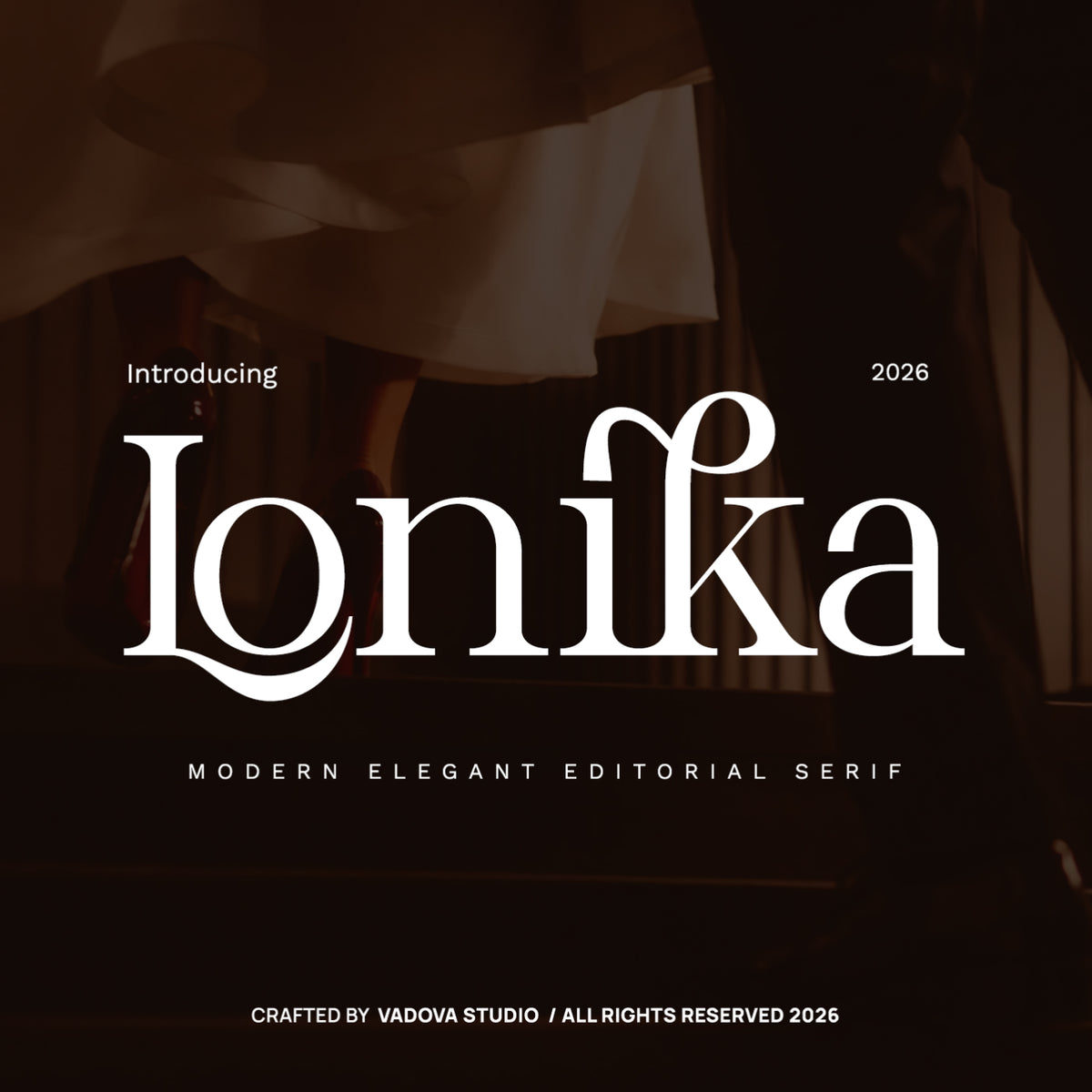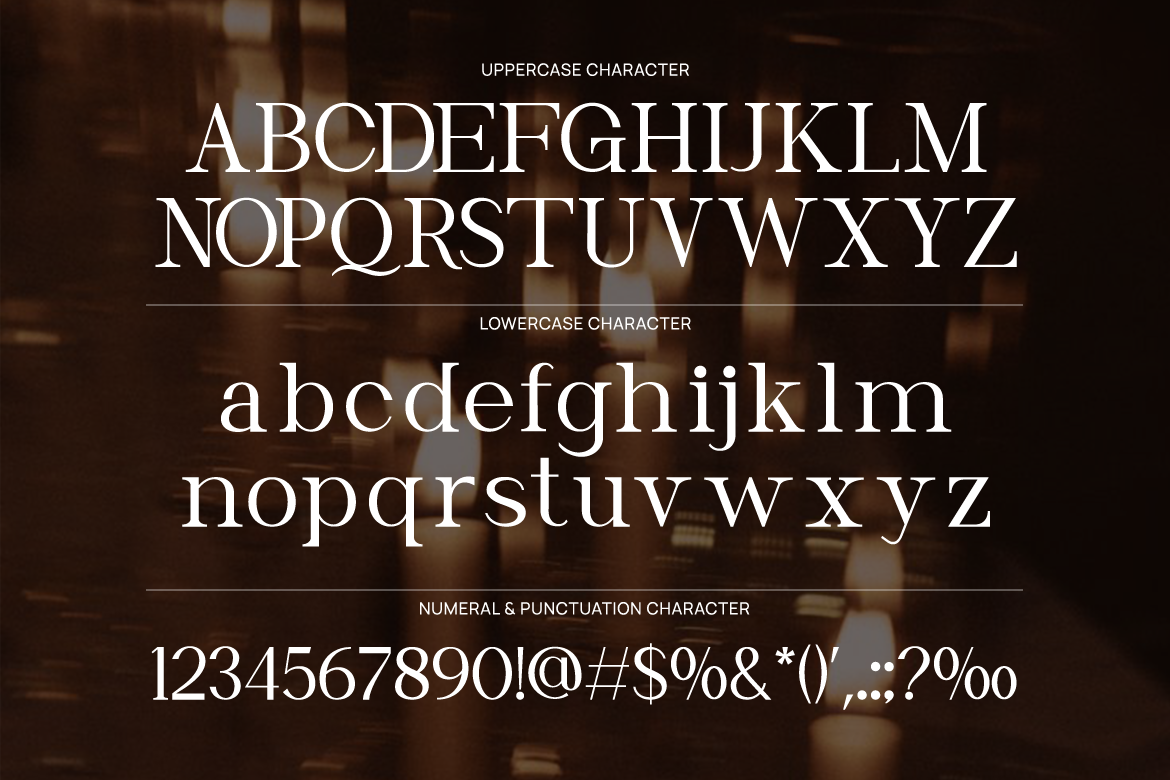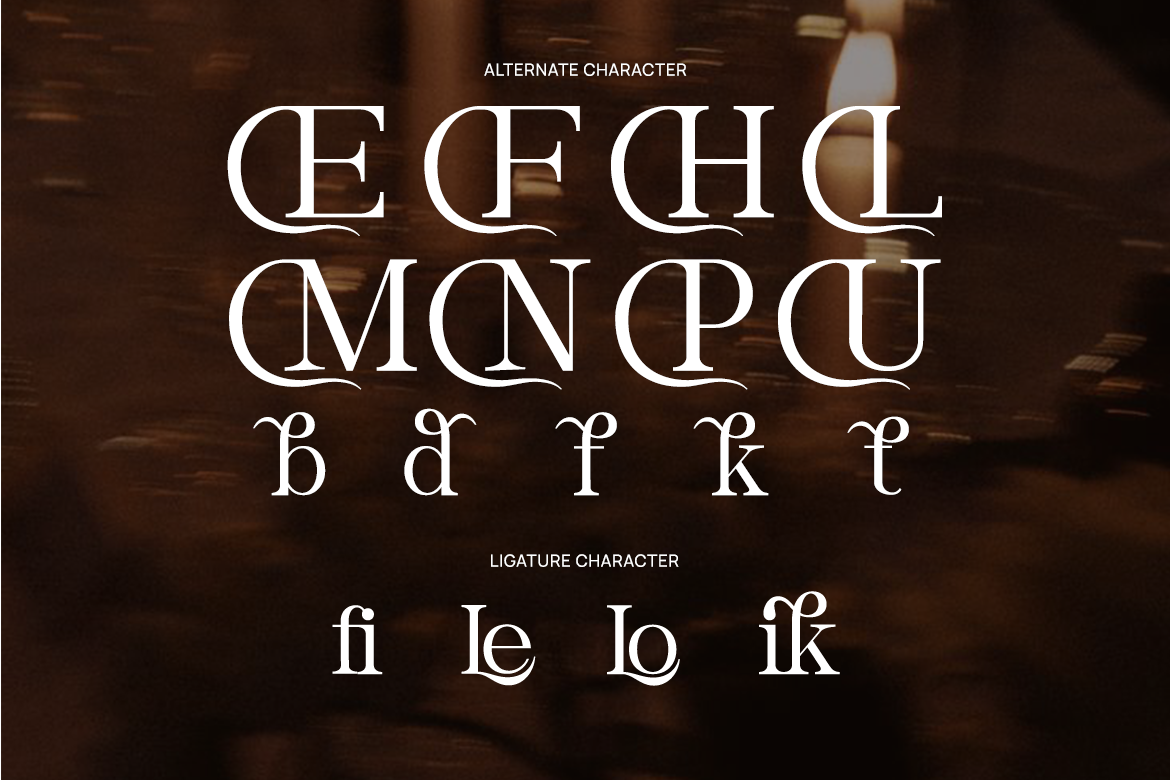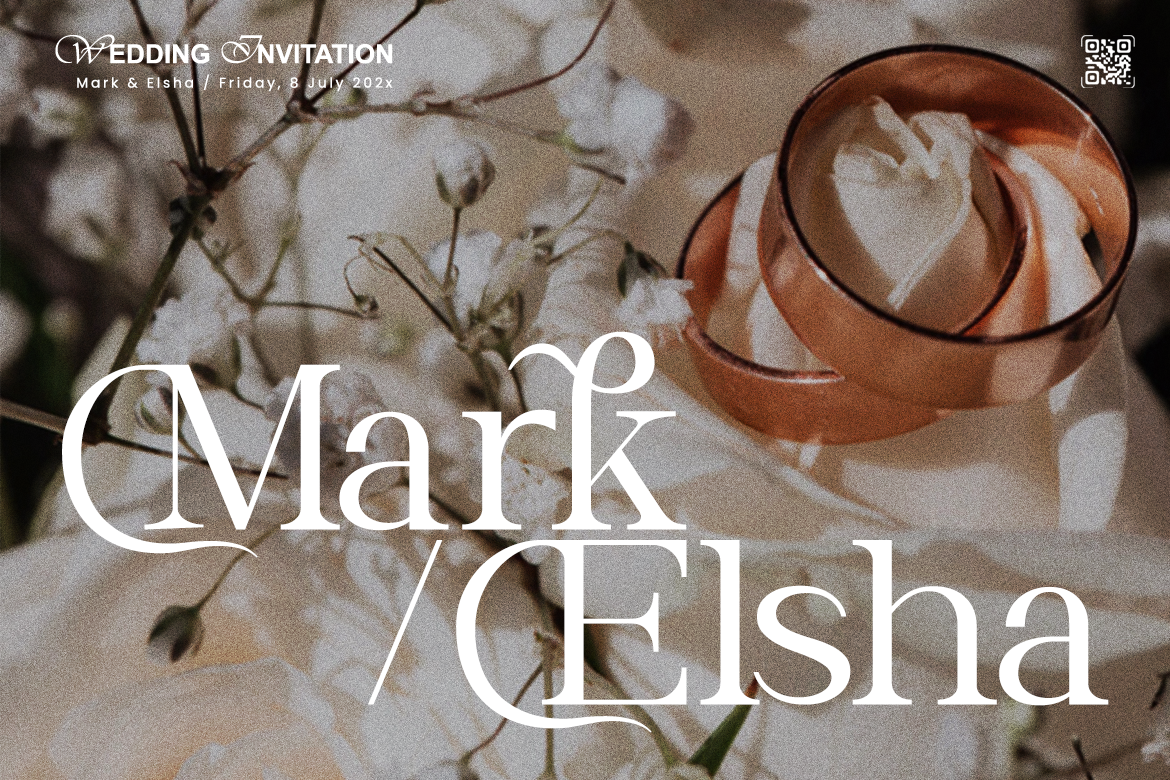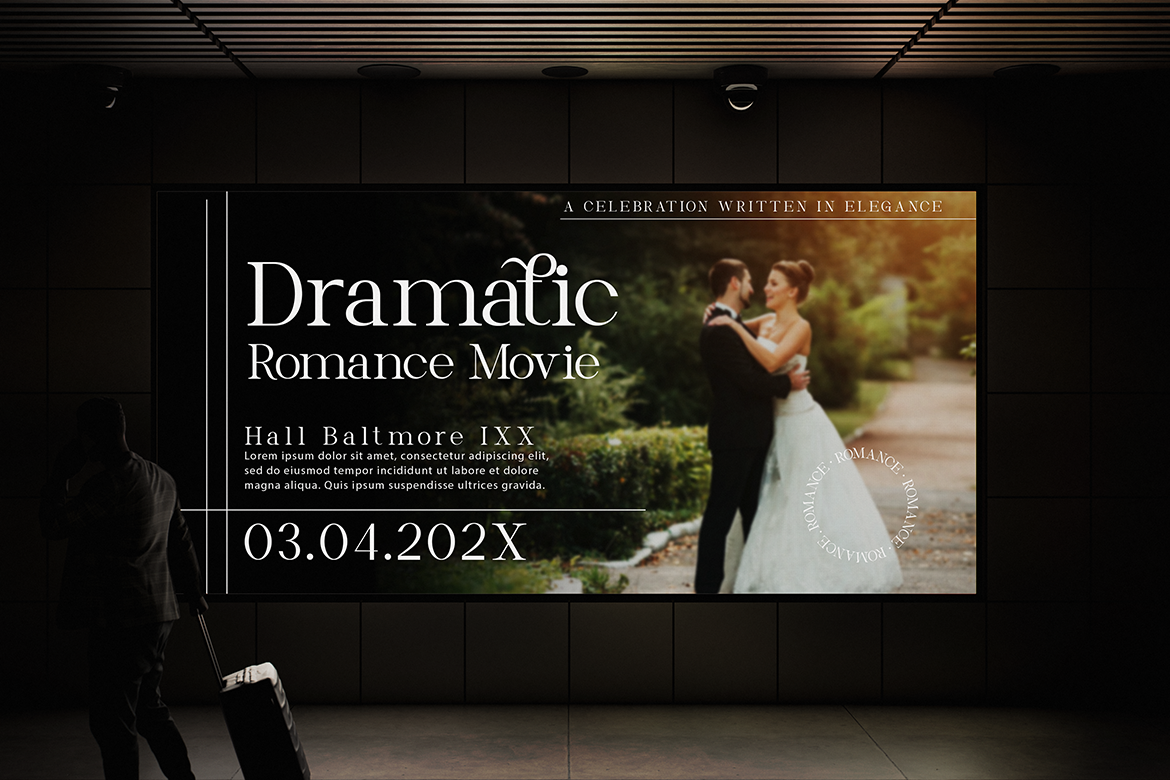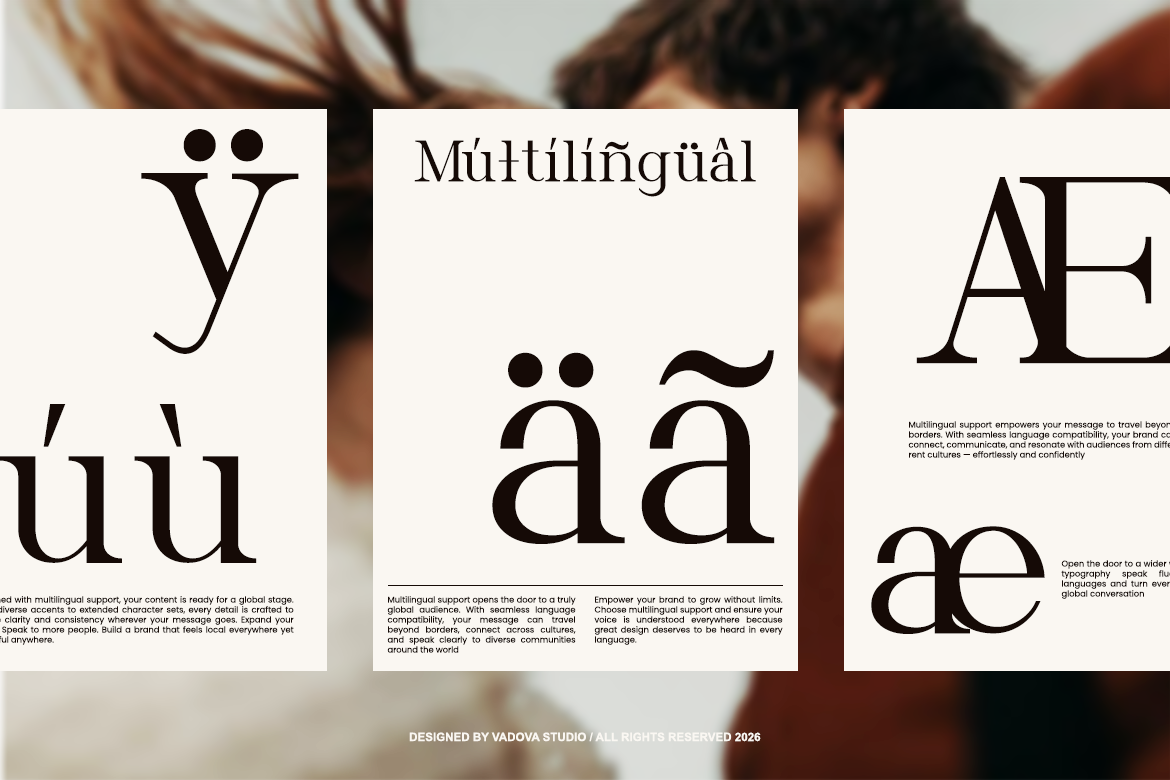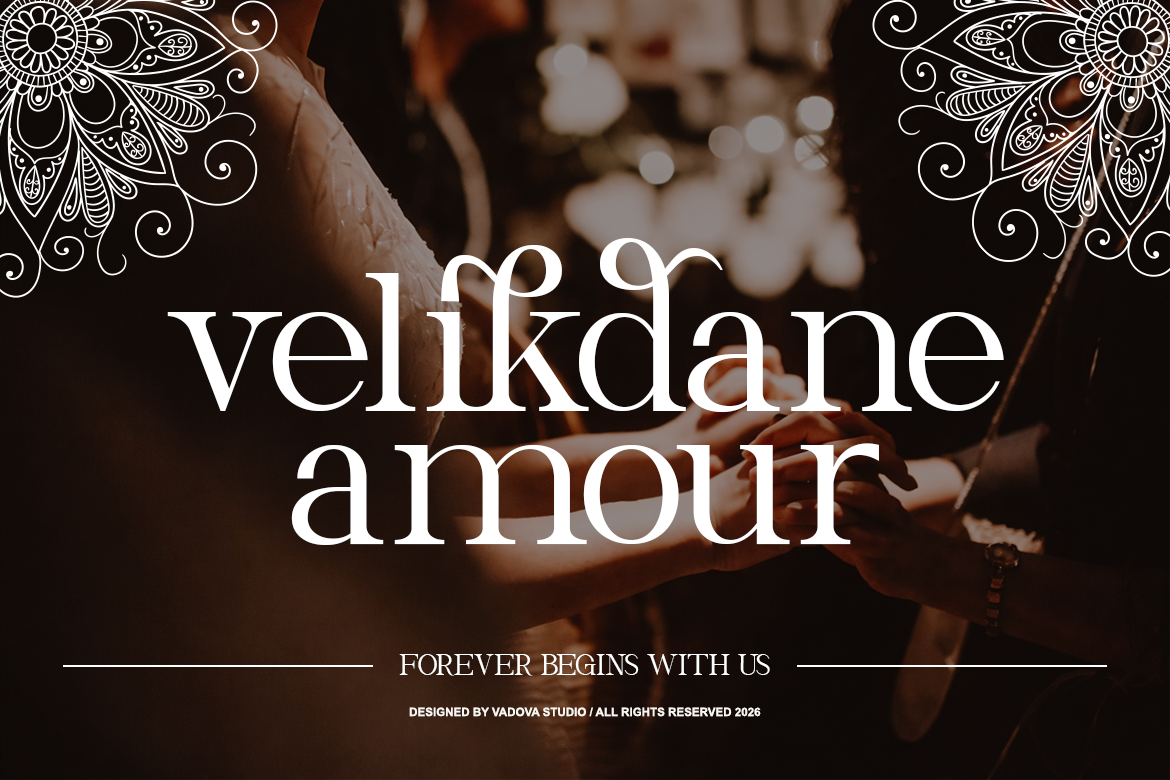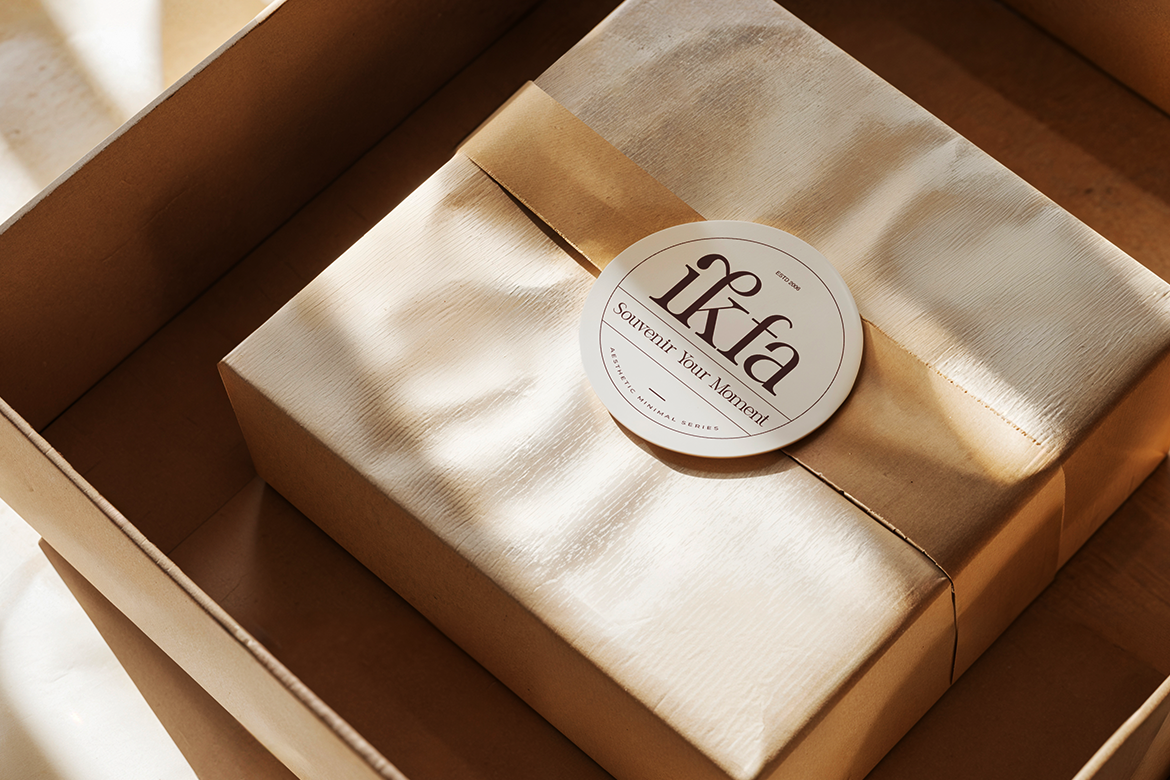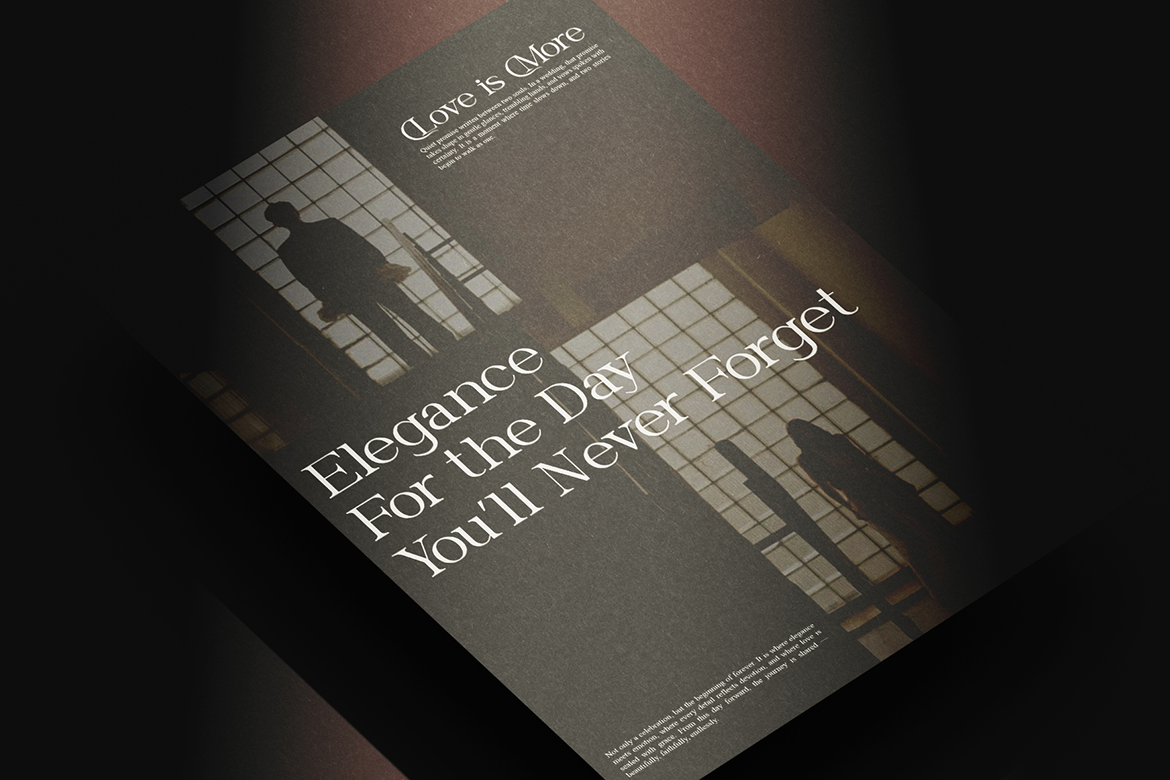
Lonika Modern Elegant Editorial Serif Font
Lonika is a modern elegant serif typeface designed to express romance, sophistication, and refined luxury. Featuring high-contrast strokes, graceful curves, and distinctive swash alternates, Lonika blends contemporary editorial aesthetics with timeless serif beauty. Its flowing ligature-style terminals and refined proportions create a harmonious balance between dramatic expression and readability.
Relevance and Uses Cases Lonika is highly relevant for wedding branding, luxury fashion labels, beauty and skincare brands, jewelry packaging, boutique businesses, editorial magazines, lifestyle blogs, and high-end marketing campaigns. Its elegant swashes and refined contrast make it perfect for logo design, invitations, social media visuals, packaging, magazine covers.
Alternate & Ligature Support
Lonika is a high-contrast serif typeface with swash alternates and ligature-style terminals, available in TTF, OTF, and WOFF formats. It includes uppercase and lowercase characters, numerals, punctuation, alternate and ligature support, and multilingual character support.